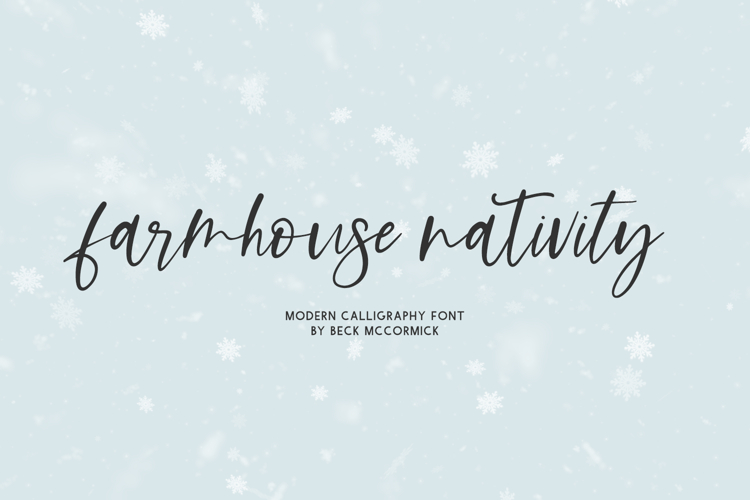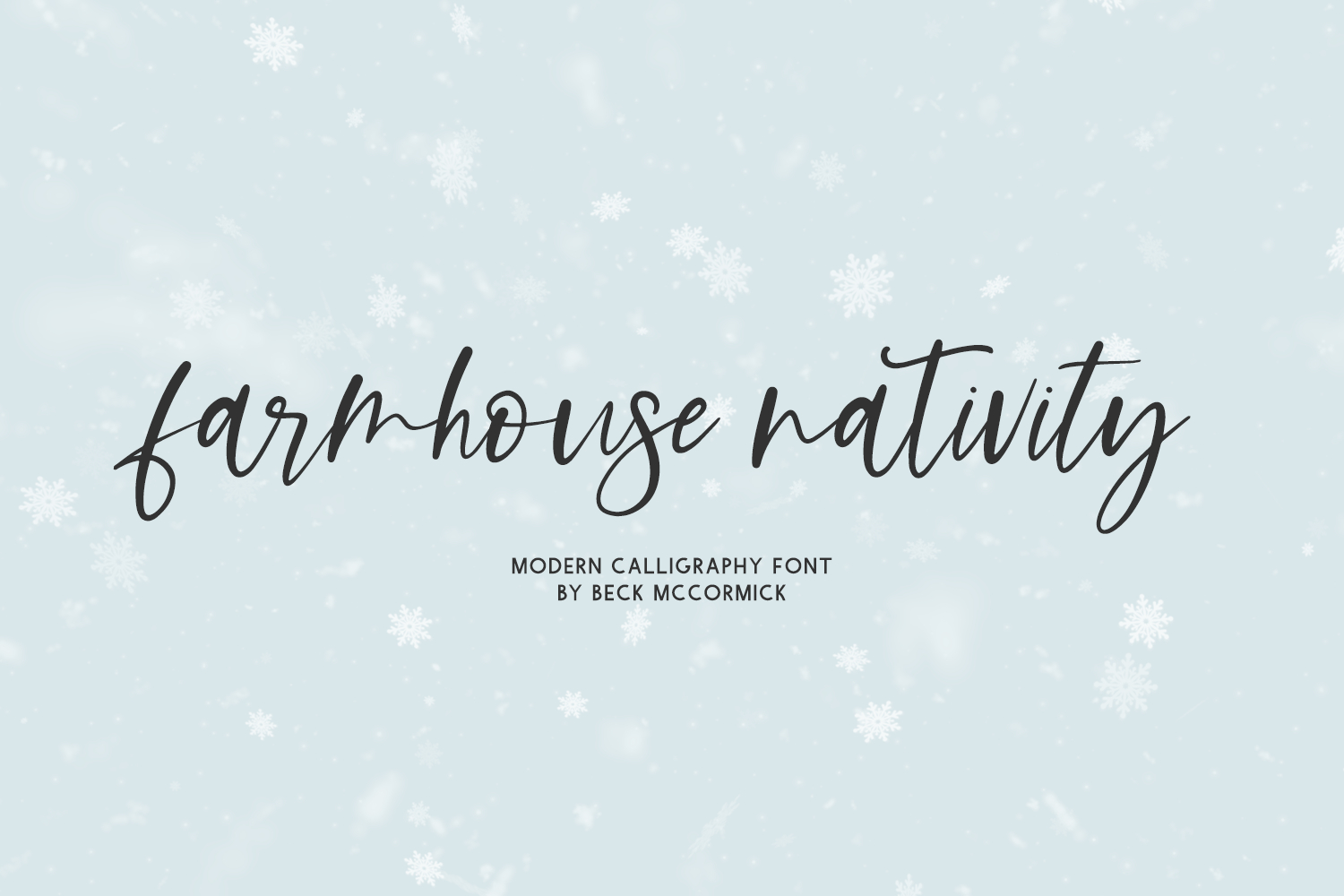
Farmhouse Nativity Script
Introducing Farmhouse Nativity Script, a handlettered modern calligraphy script. Farmhouse Nativity features 26 alternates & 14 ligatures to enhance the handwritten look & feel of your project.
Farmhouse Nativity includes:
- 26 alternates
- 14 ligatures - bb, cc, dd, ee, ff, gg, ll, mm, nn, oo, pp, rr, ss, tt